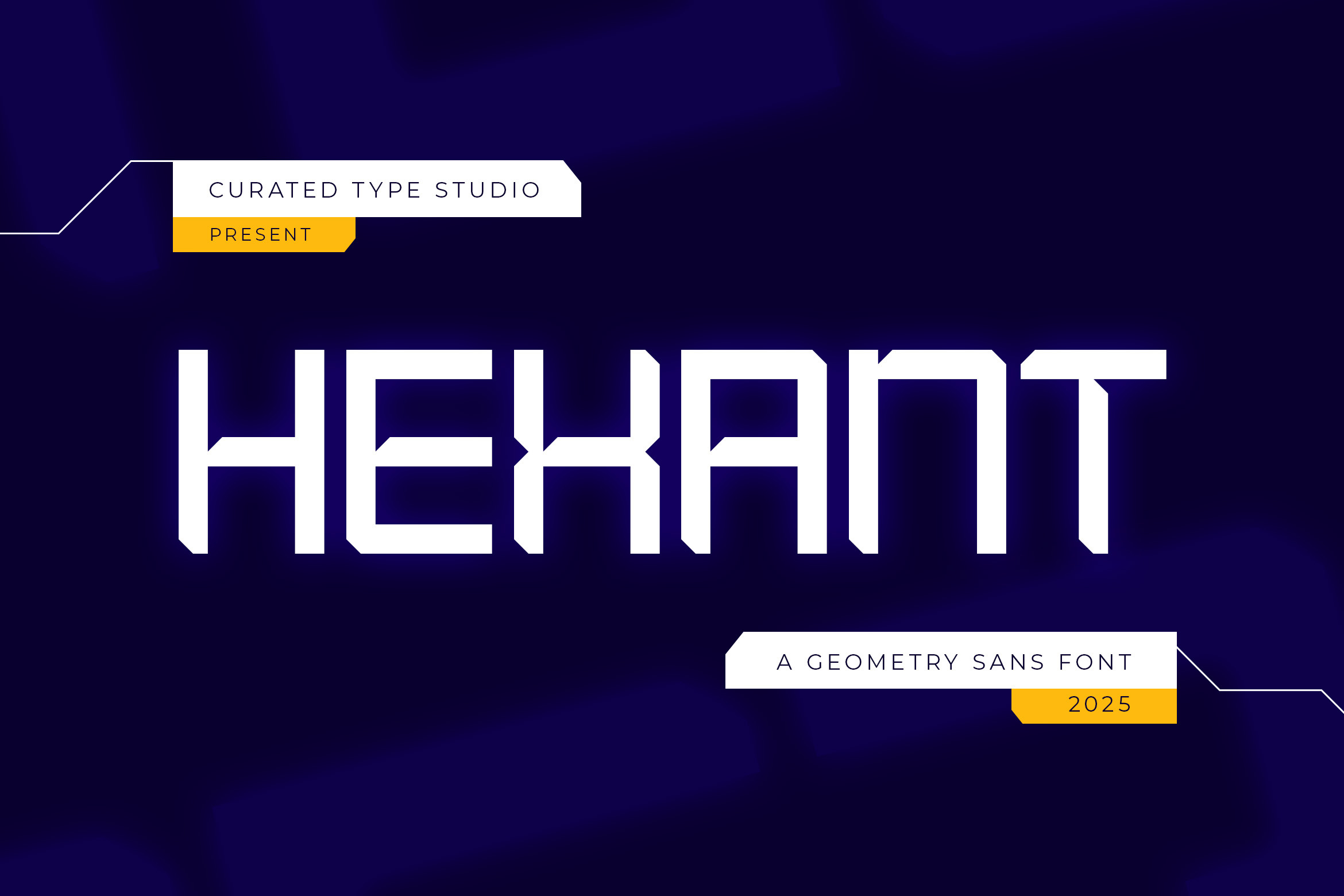
Hexant - Geometry Sans Font
Hexant is a bold, modern typeface defined by its geometric forms, sharp angles, and striking block-like shapes. Its angular design evokes a futuristic, digital aesthetic that makes it a perfect fit for technology-driven projects and innovative branding. Engineered for clarity and versatility, Hexant comes complete with both uppercase and lowercase letters along with numerals for consistent application. Its refined style not only ensures readability but also adds a contemporary flair to any design.